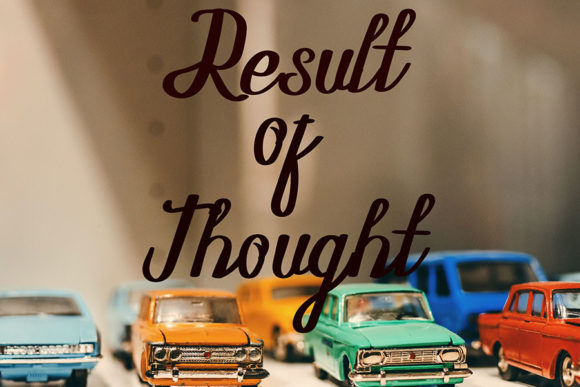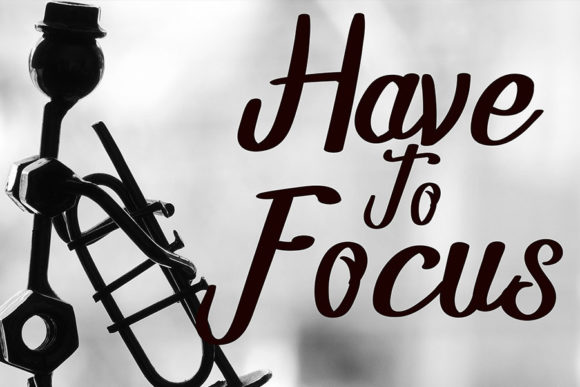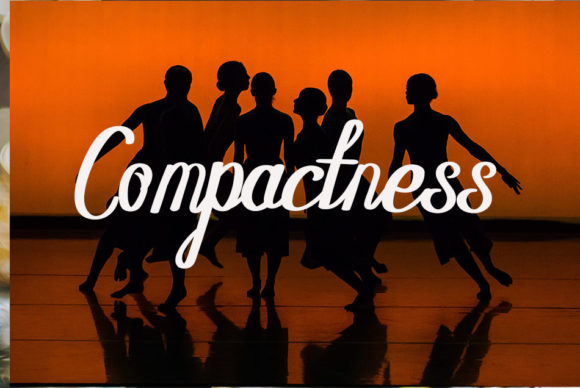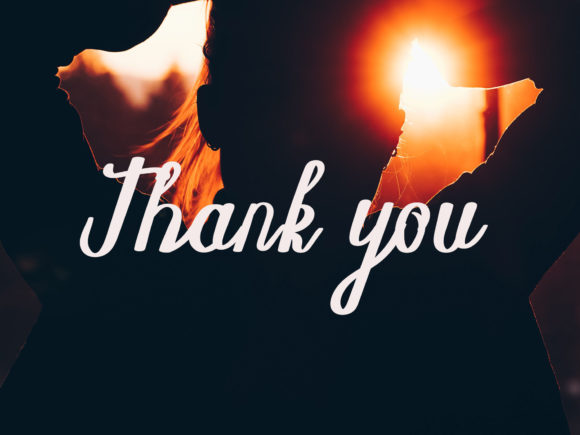
Imagination Font
Imagination is a beautiful and light handwritten font with a unique feel and a stunning impact. It will add a luxury spark to any design project that you wish to create!